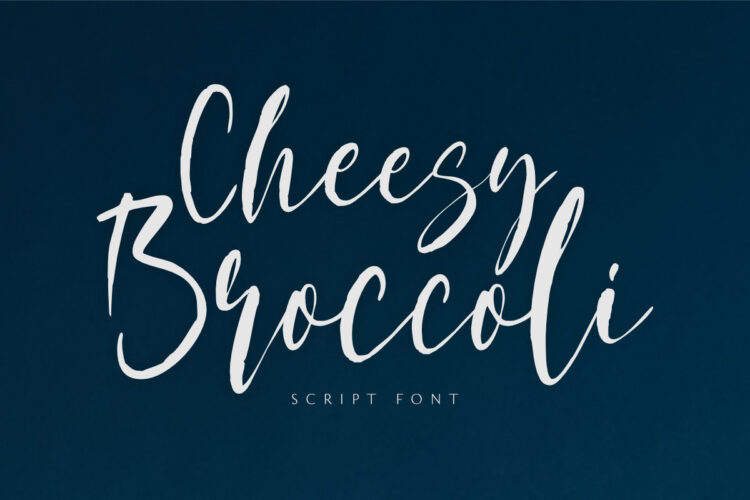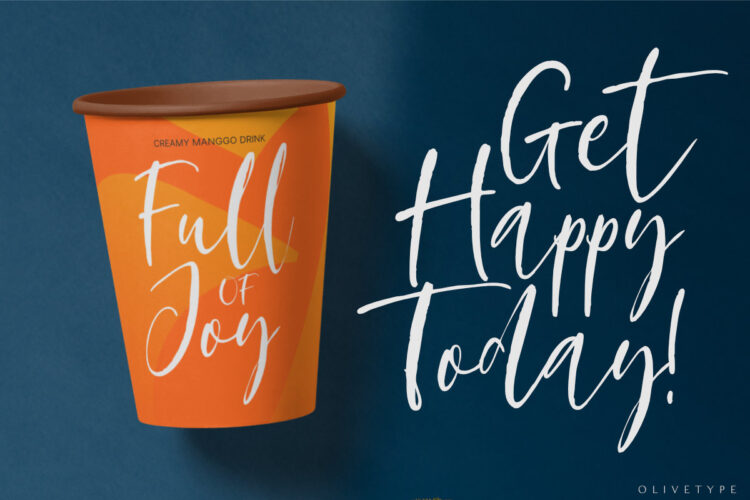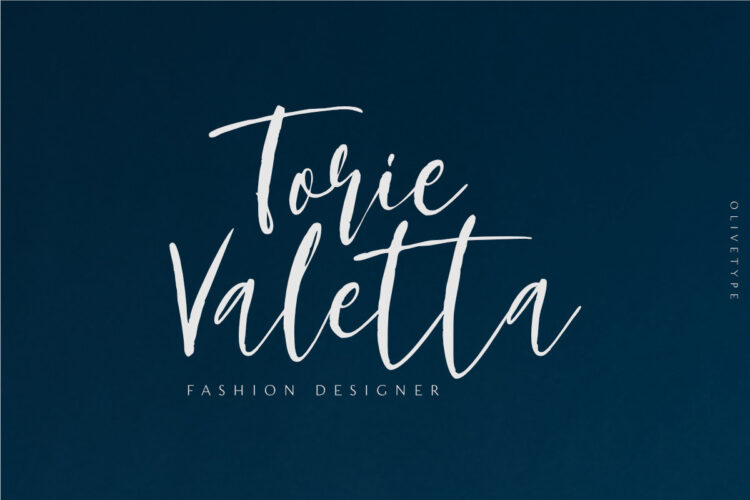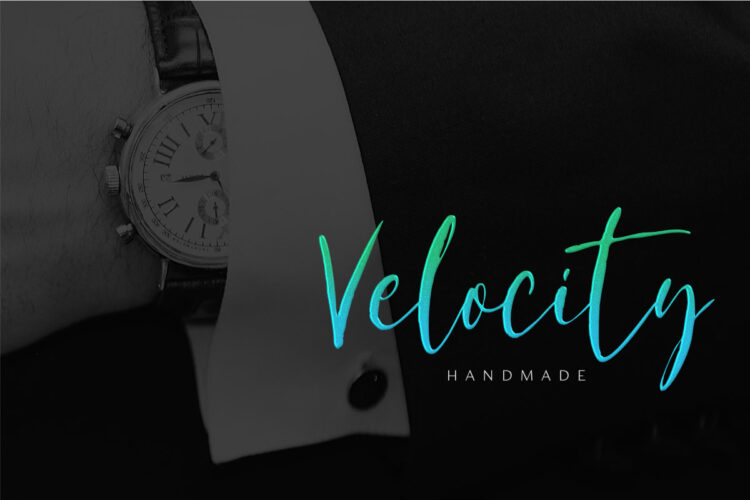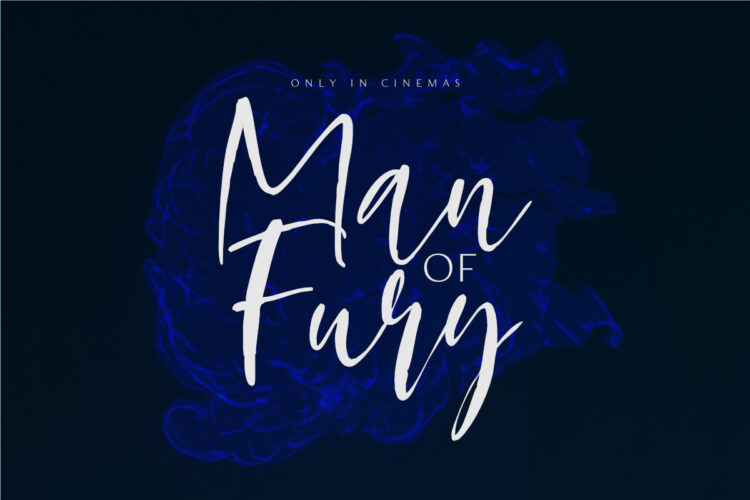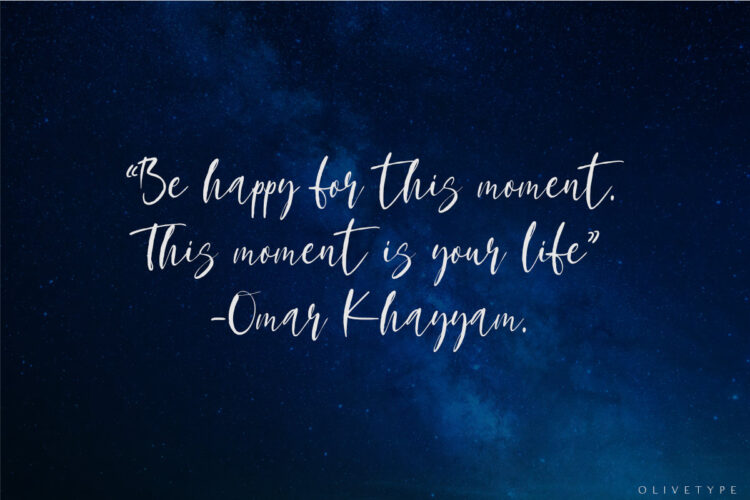
Cheesy Broccoli is a carefree signature script font. This versatile script font has a wide spectrum of applications ranging from logotype, product branding to headlines. Add a masculine feel to your next project with this modern calligraphy-styled font.
- Basic Latin A-Z & a-z
- Ligatures